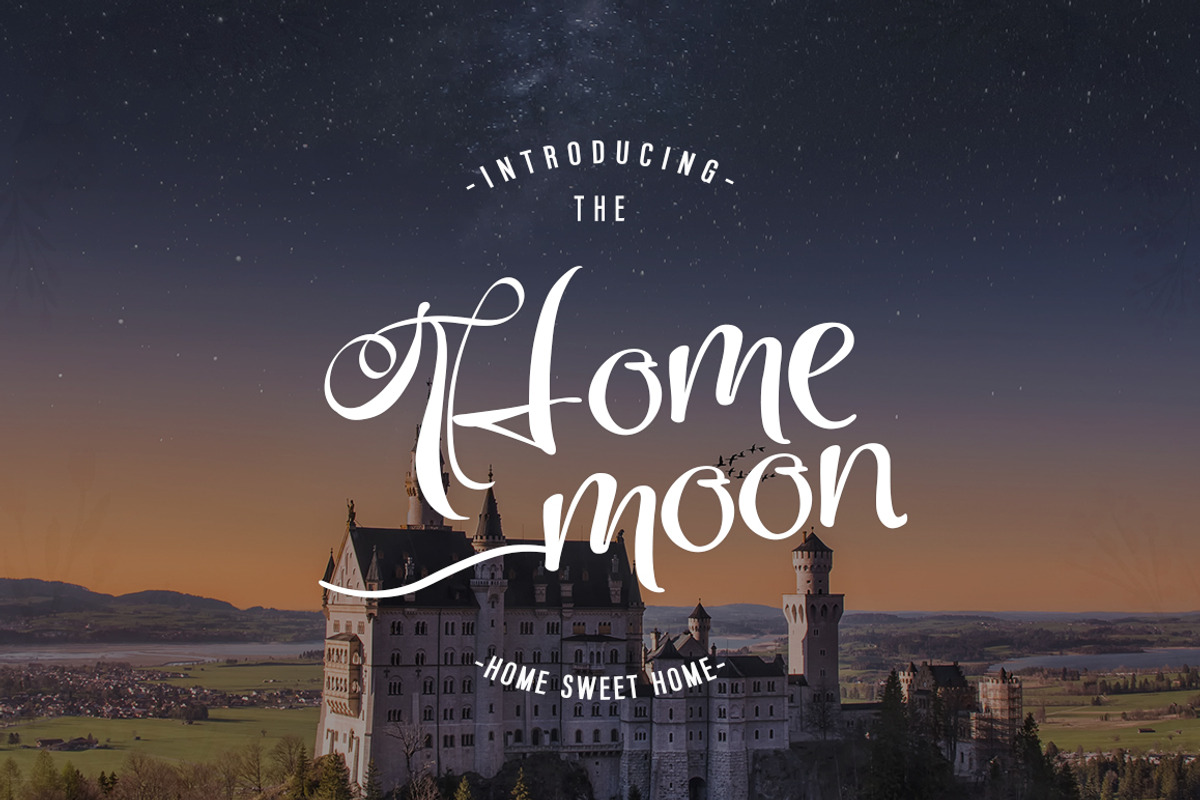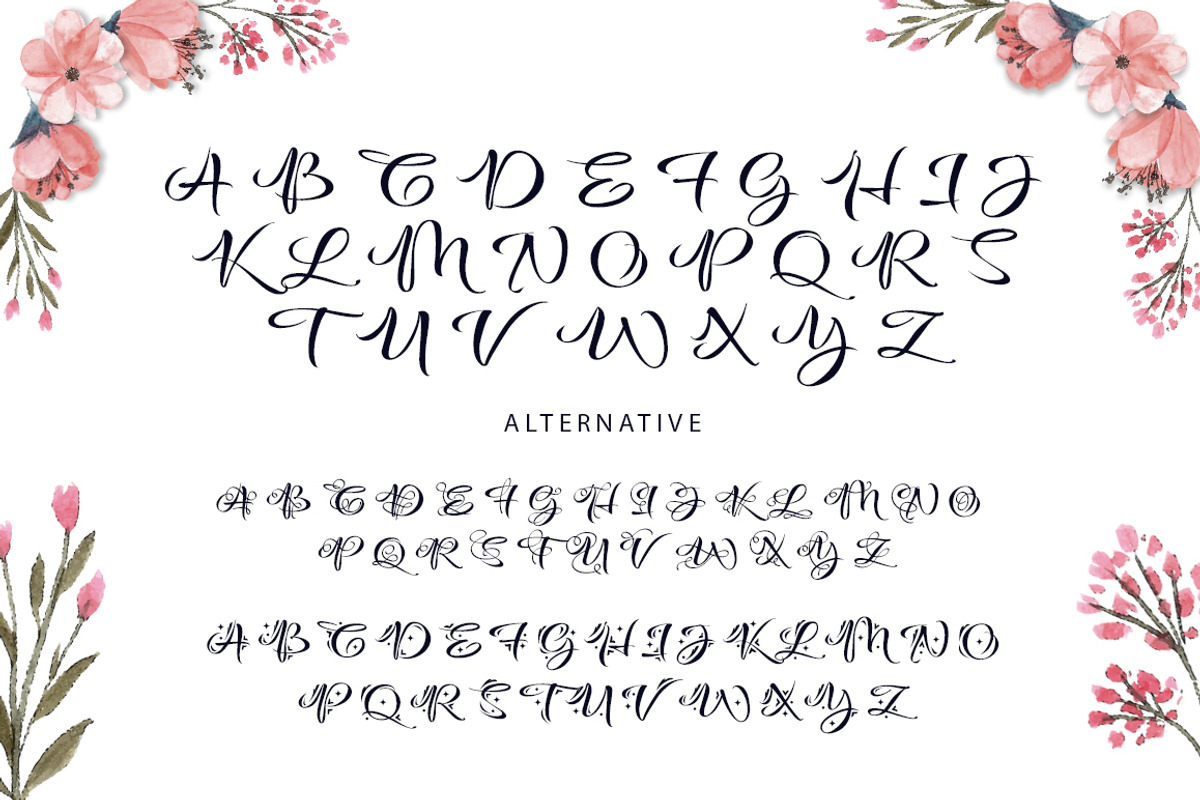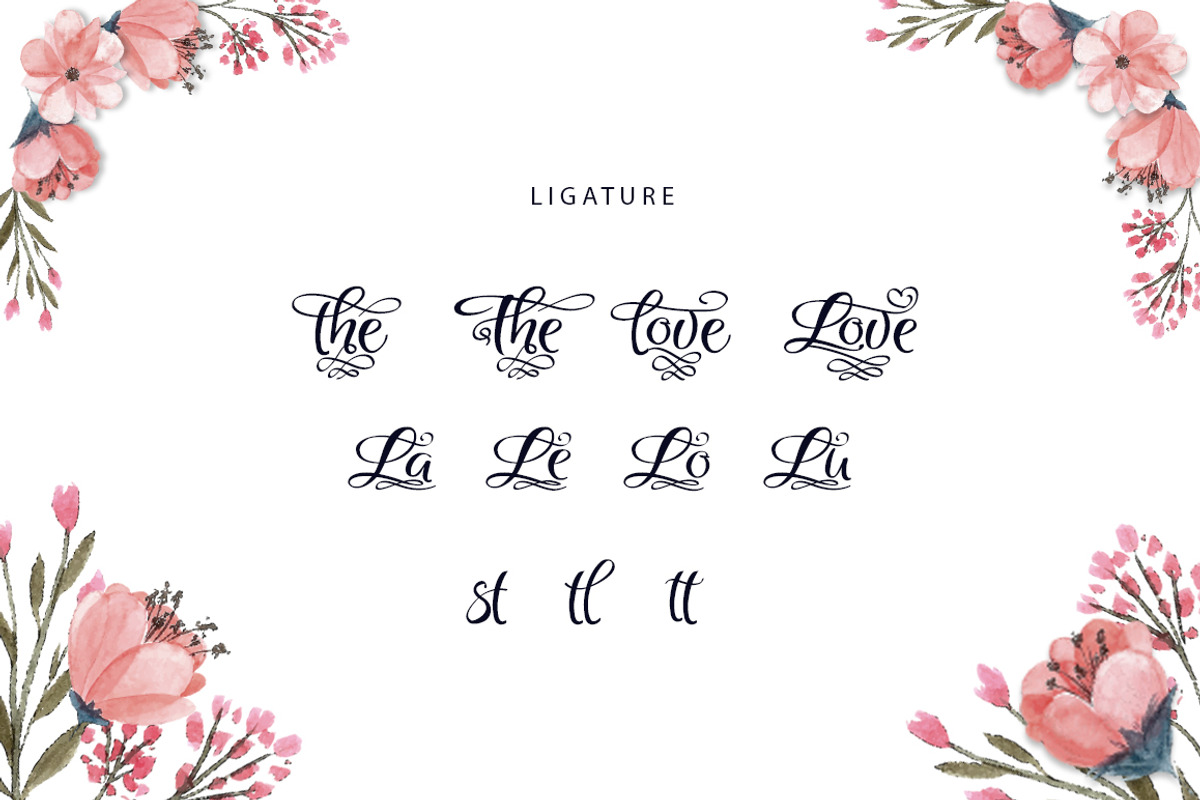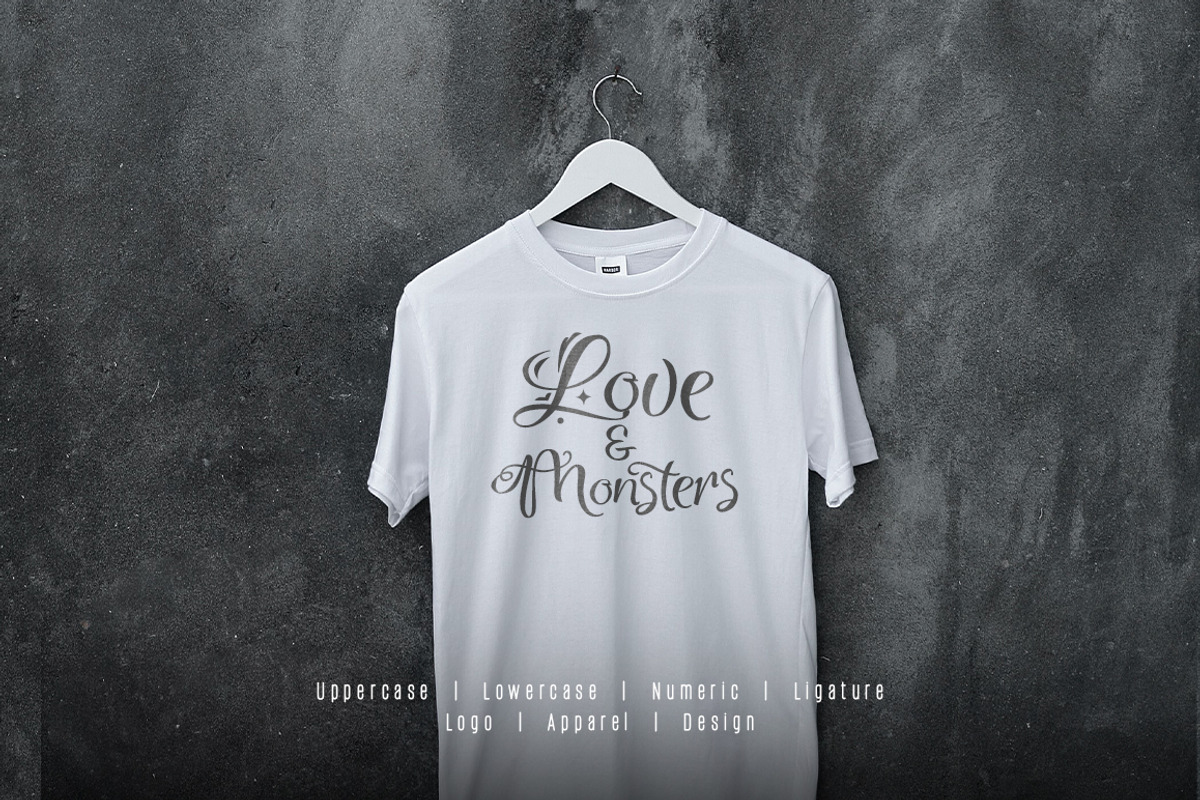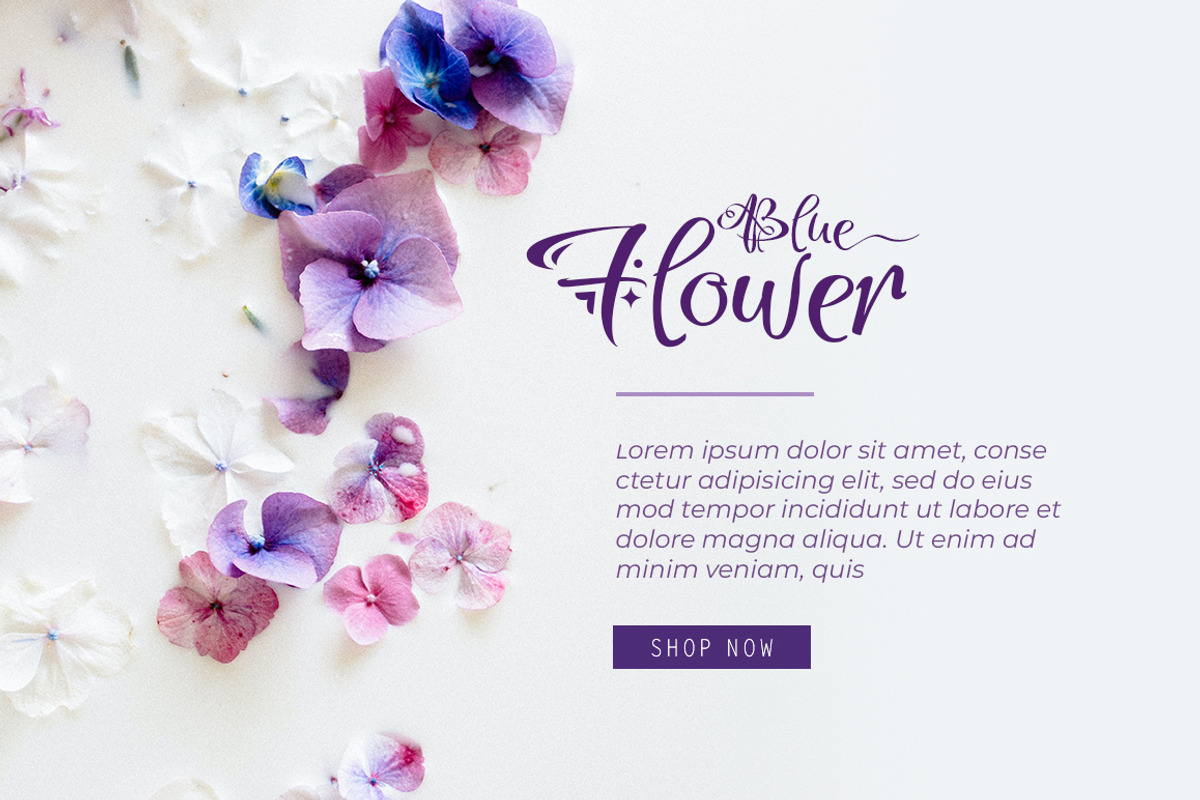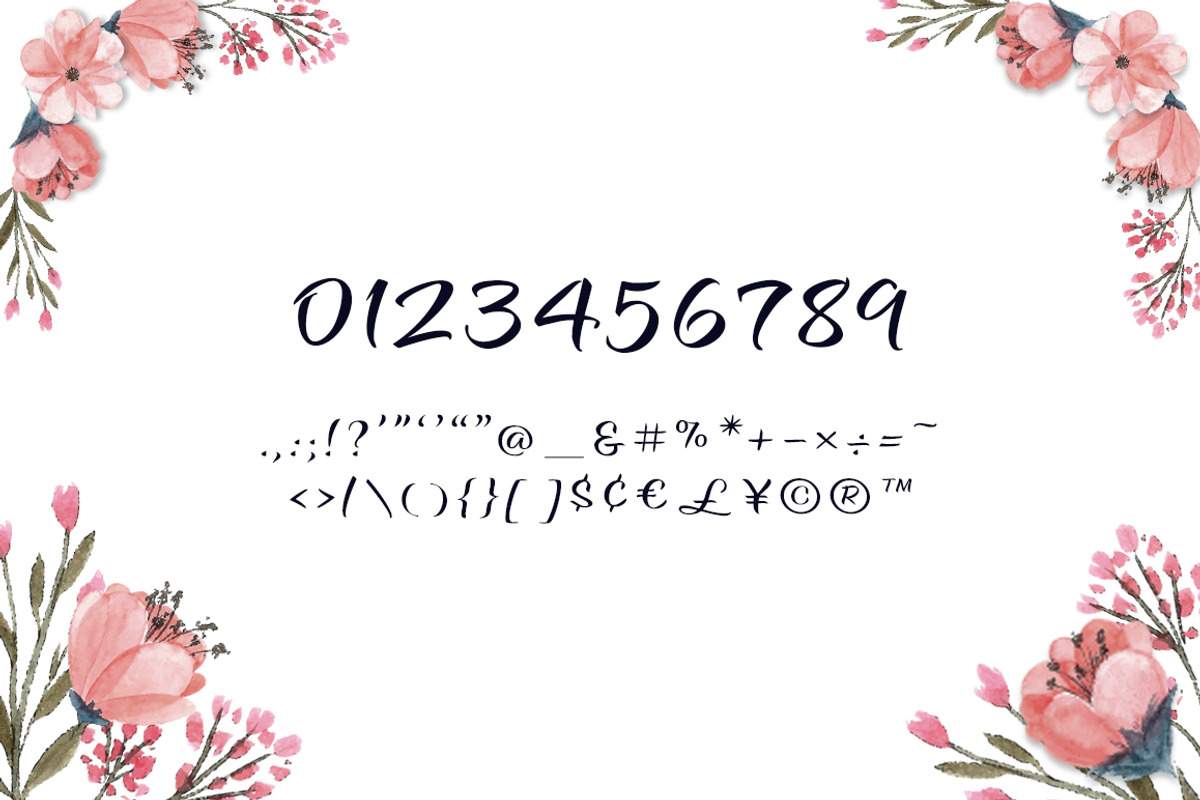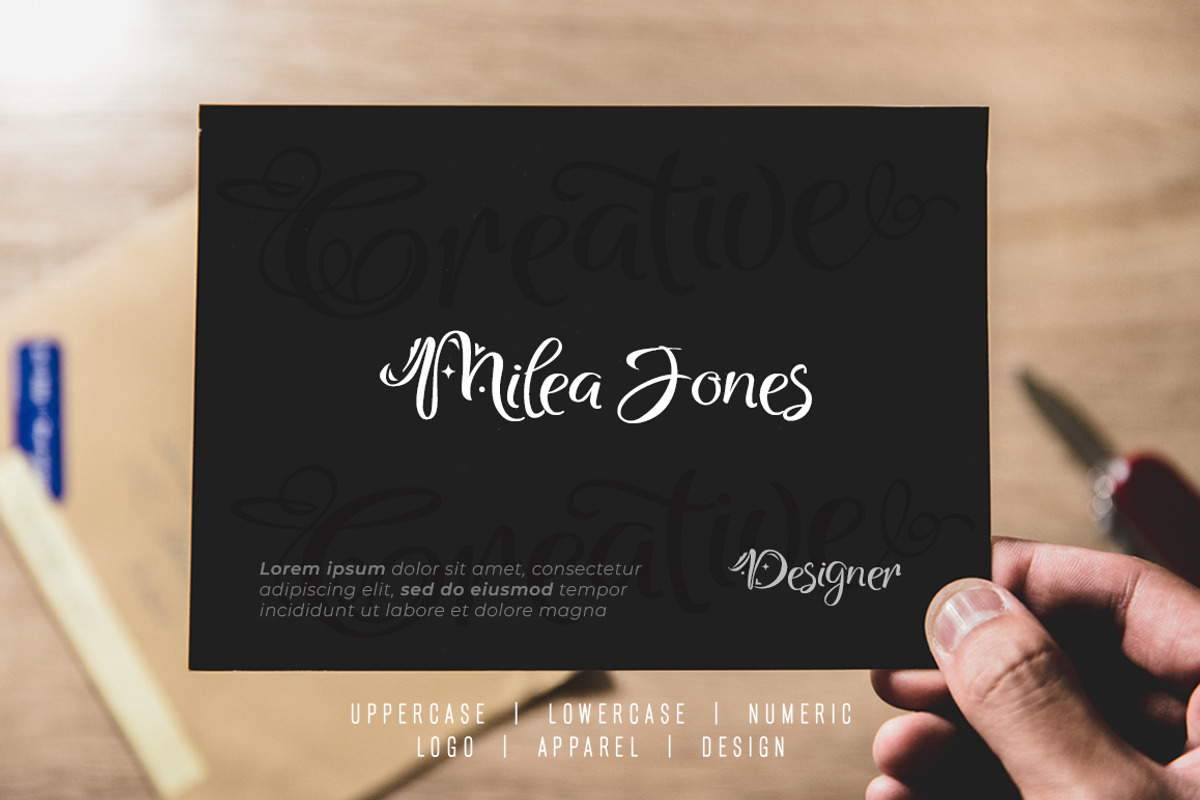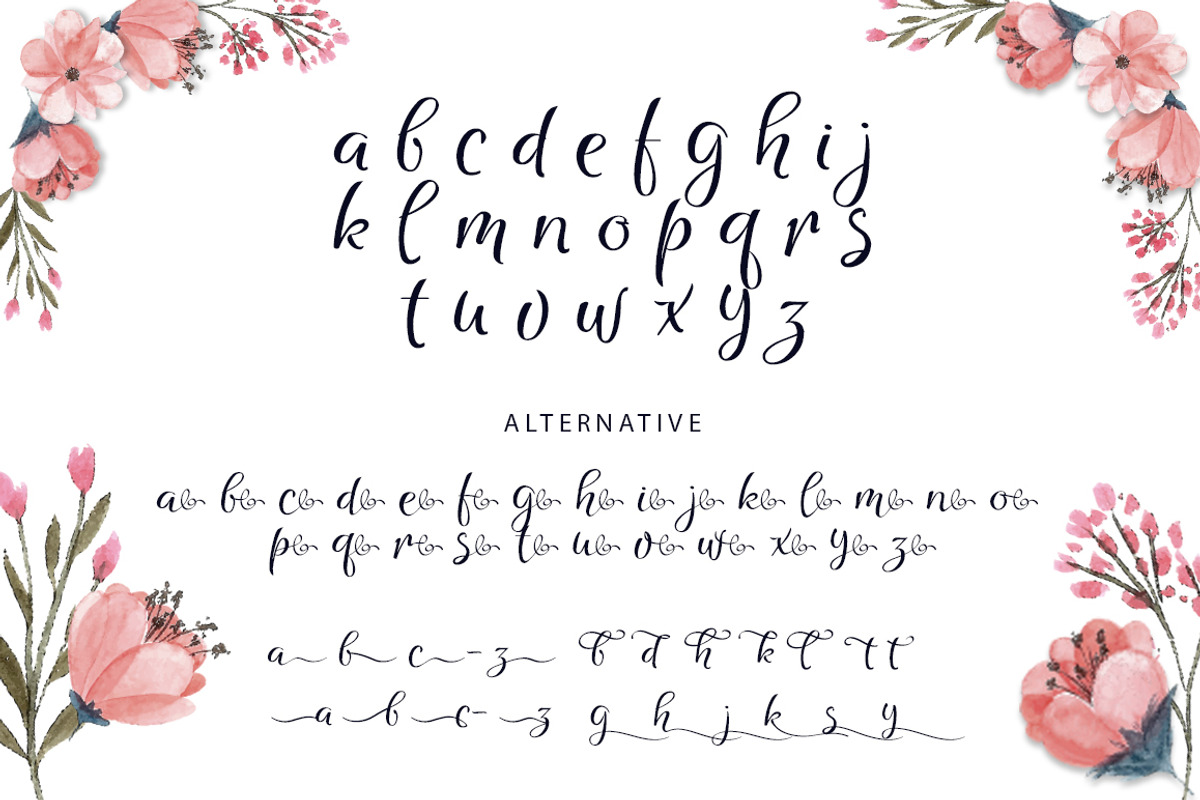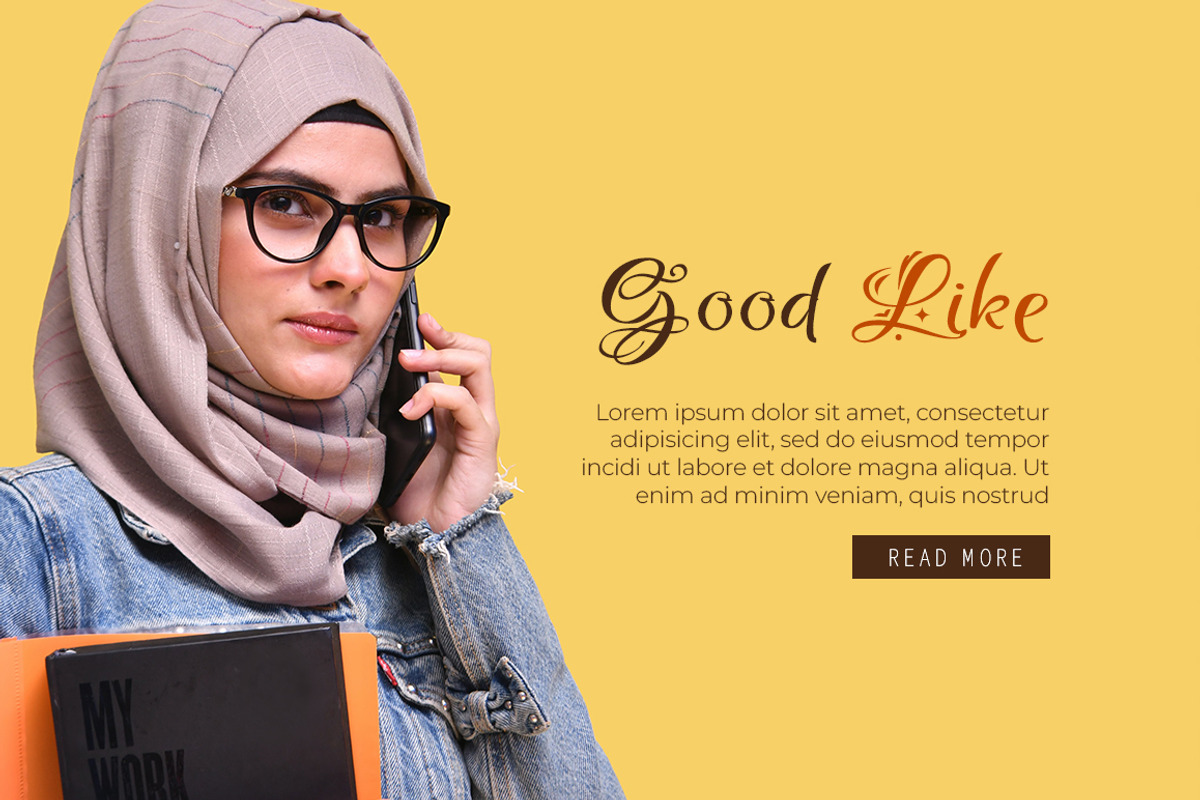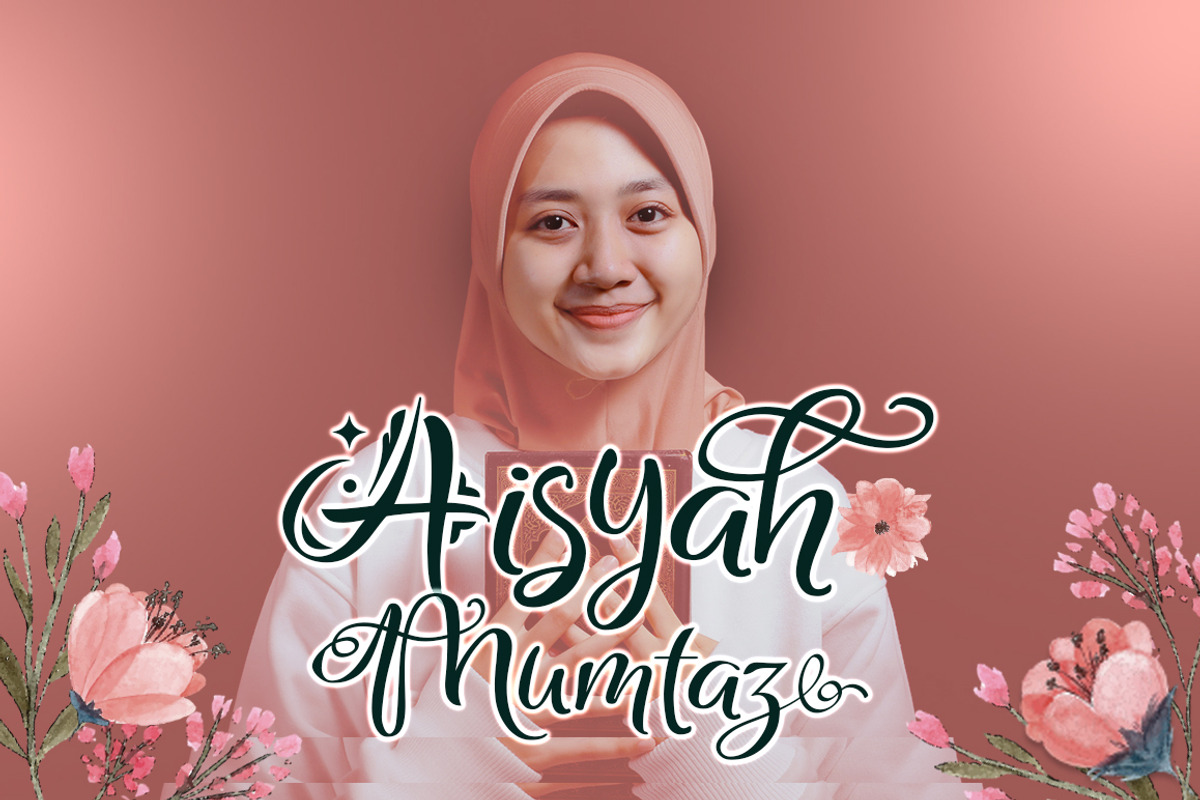
Shafeera Script Font
Shafeera Script Font very suitable for poster, for logo, music cover, clothing, and many many cool design projects. Shafeera Script Font is uppercase, lowercas and numeric. Alternative typeface and ligature.